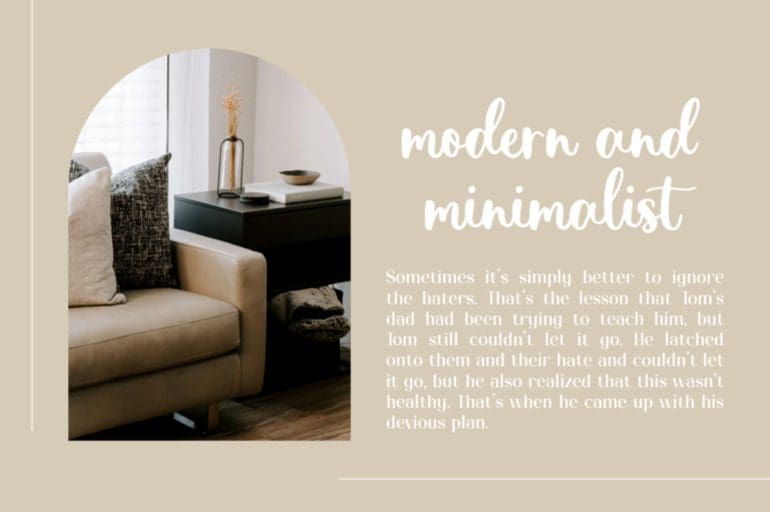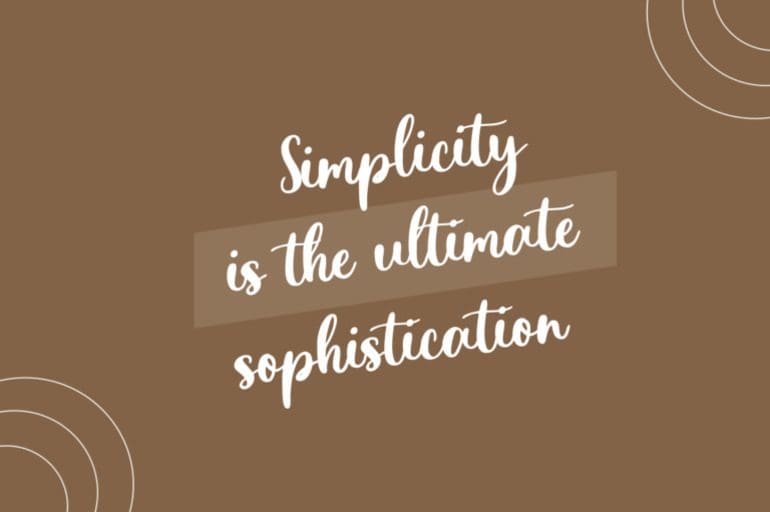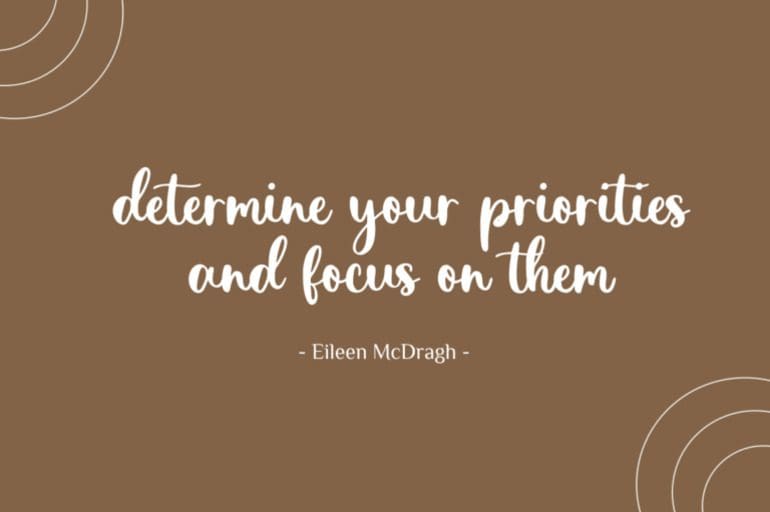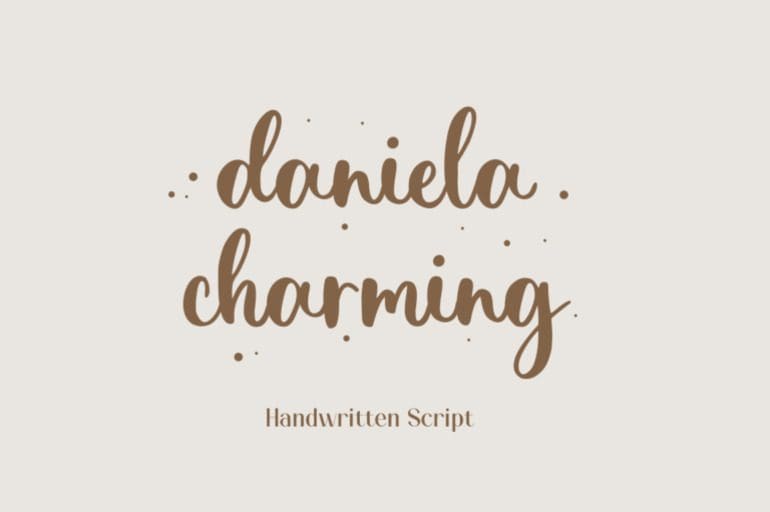
Daniela Charming Font
Daniela Charming is a natural calligraphy font perfect for crafting, branding, invitation, stationery, wedding designs, social media posts, advertisements, product packaging, product designs, label, photography, watermark, special events, or anything. Daniela Charming comes with a full set of uppercase and lowercase letters, multilingual symbols, numerals, and punctuation.